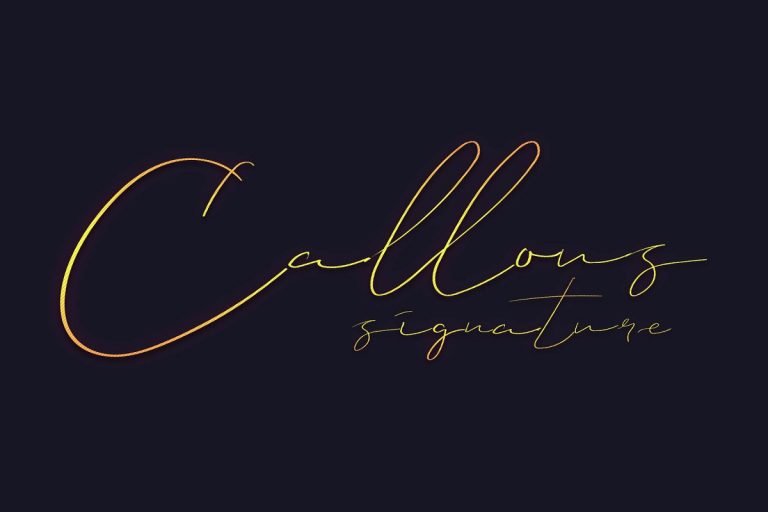
Callous Signature Font
Callous Signature Demo Font
Callous Font – a new signature font duo by Gumacreative. Here is another script font. This stuff is perfect for you to use it on your design logo, banner, poster, or even a signature design. This is an original hand writing font, perfect for give your design an authentic touch.